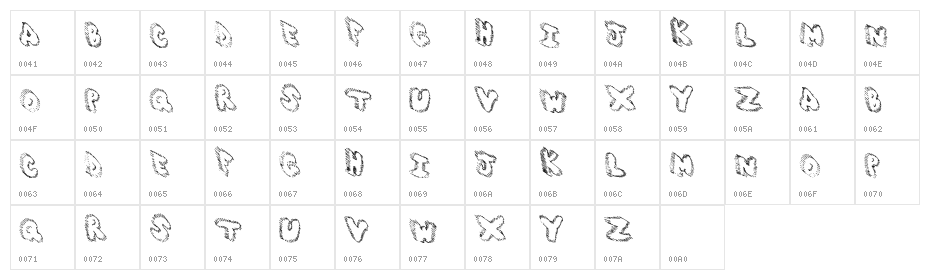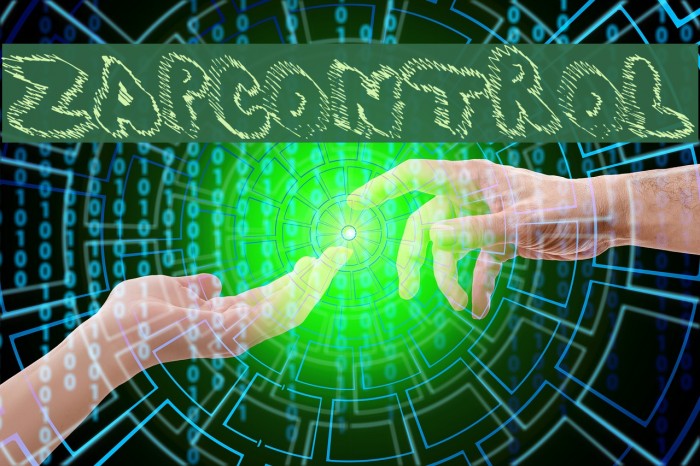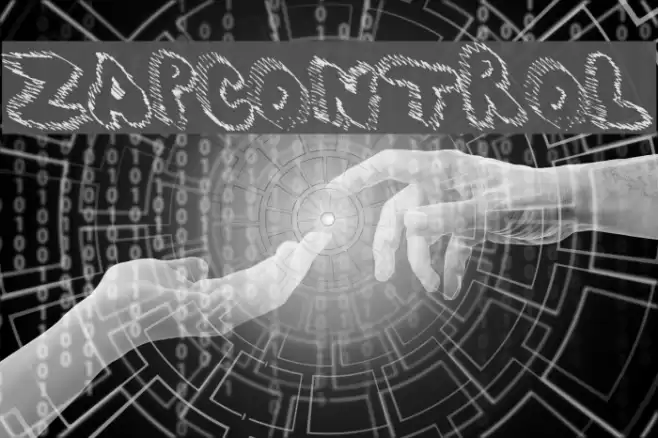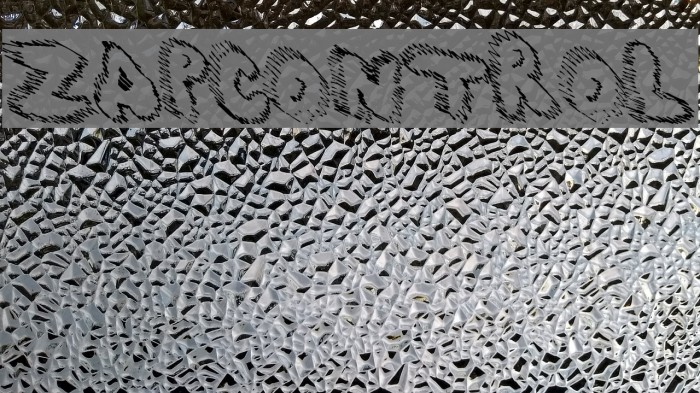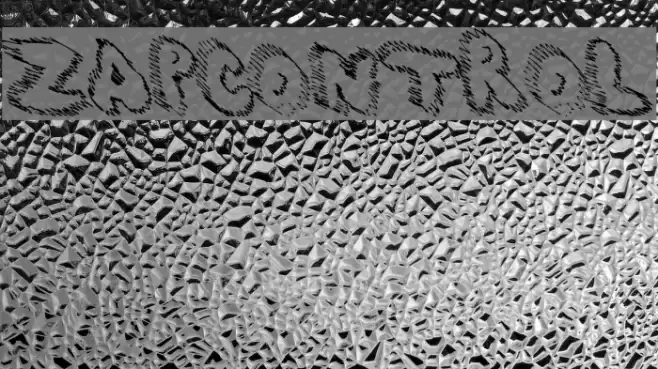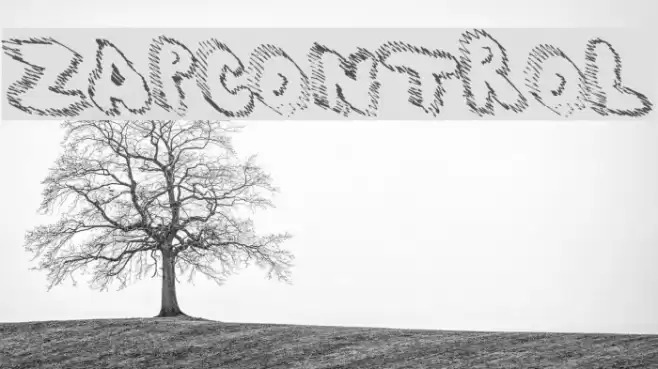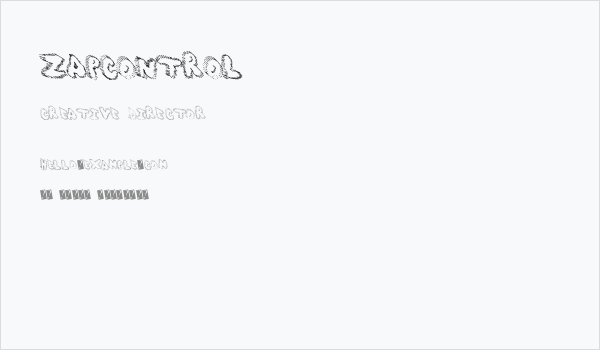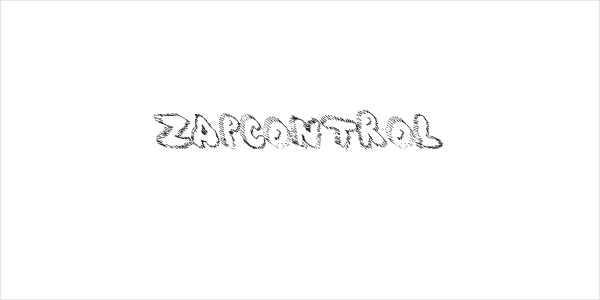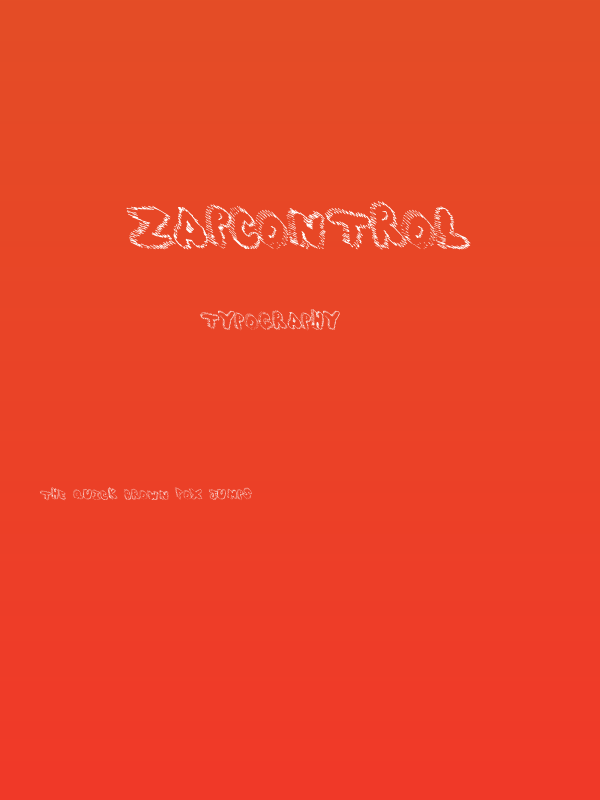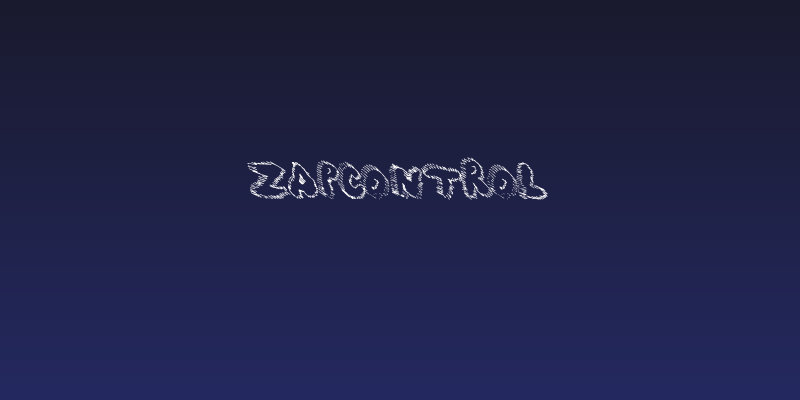
ZapControl Font
ZapControl Description
This font features a dynamic and energetic style, characterized by its jagged, lightning-like edges that give it a sense of movement and excitement. The uppercase and lowercase letters maintain a consistent, bold appearance, making them stand out with a striking visual impact. The font's unique design is reminiscent of electric currents or rapid motion, making it ideal for projects that require a sense of urgency or vibrancy. Its playful yet edgy aesthetic is perfect for creative and unconventional designs.
| Proposed Projects | Ideal for music album covers, event posters, video game titles, or any project needing a dynamic and edgy look. |